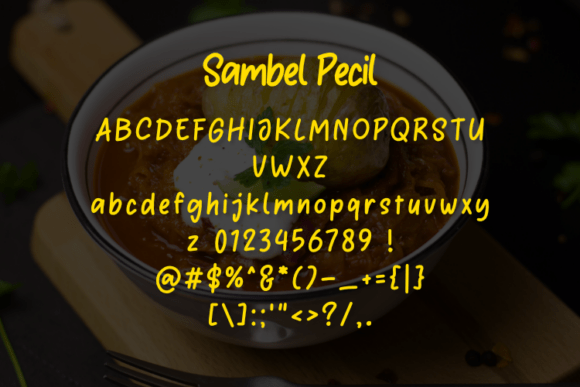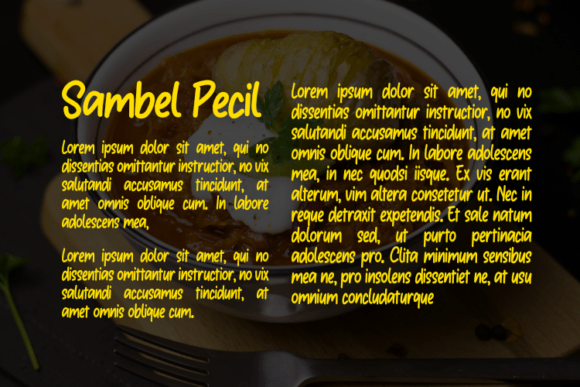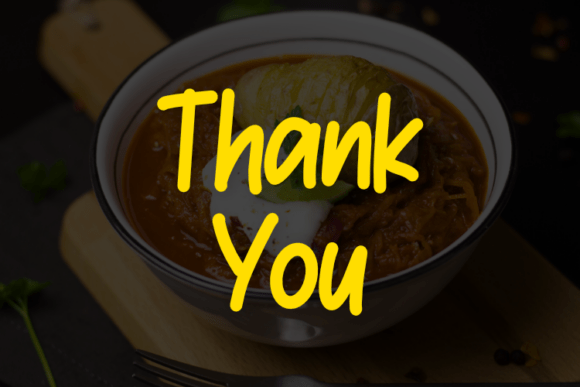
Introduction to Sambel Pecil Font Font
Fonts play a crucial role in design, and the Sambel Pecil Font font is a typeface that brings both character and versatility to any project. Whether you’re working on a branding project, a website, or a print design, the Sambel Pecil Font font offers a unique style that can elevate your work.
Presenting Sambel Pecil, an eclectic font with infinite design possibilities.
Engineered for creating stunning visuals, itβs an ace up your sleeve when it comes to clothing and t-shirt design, as well as a myriad of other products With unquestionable compatibility across all design software, Sambel Pecil transcends digital boundaries.
Key Features of Sambel Pecil Font Font
Why Choose Sambel Pecil Font Font?
The Sambel Pecil Font font is more than just a typeface β it’s a design tool that helps you communicate your message with style and clarity. Its unique character set and versatile design make it suitable for a wide range of applications, from elegant invitations to bold headlines.
With its carefully crafted letterforms and balanced proportions, the Sambel Pecil Font font ensures readability and visual appeal across all mediums.
What makes Sambel Pecil Font font special?
The Sambel Pecil Font font stands out with its unique design, exceptional readability, and versatility across various design applications.